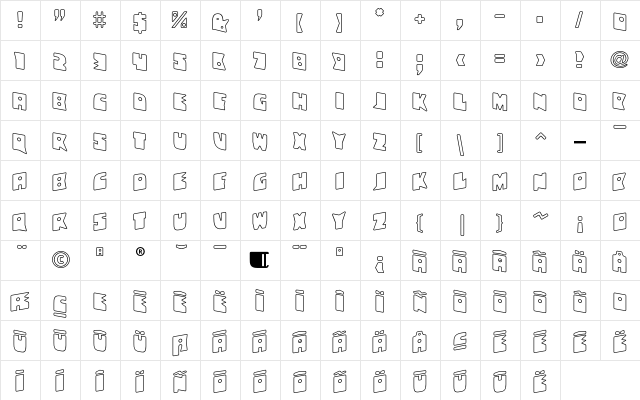
Bronz SmartOutlined
Design Context for Bronz Typeface
Bronz is built around its visual character rather than neutral utility — its distinctive forms are designed to make an impression at display sizes.
Font Pairing: Pair with a clean neutral sans-serif for body copy to let Bronz's character lead without overwhelming the composition.
Pro Tip: Use Bronz exclusively at display sizes — it was designed to be seen, not read at length. Let a neutral companion handle body copy.